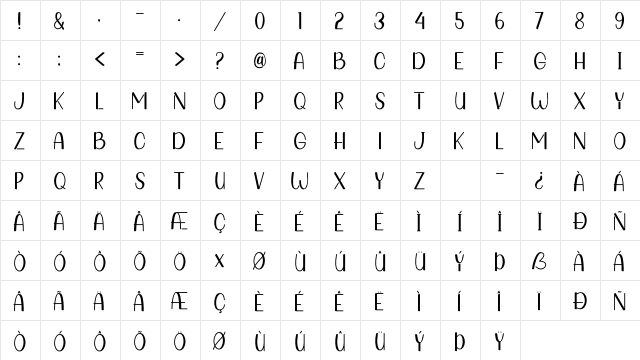
Galaxy Funsans Regular
| Designer | Andri Ardianto + Madatype Studio |
Design Context for Galaxy Funsans Typeface
Galaxy Funsans has an approachable, lighthearted character — its loose, expressive forms are well-suited to children's content, casual branding, and fun-first design.
Font Pairing: Pairs well with a rounded or humanist sans for body copy, maintaining the friendly tone without relying on Galaxy Funsans to carry extended reading.
Pro Tip: Use Galaxy Funsans at larger display sizes where its expressive character can land. Pair with a clean, simple sans for body copy to maintain readability.